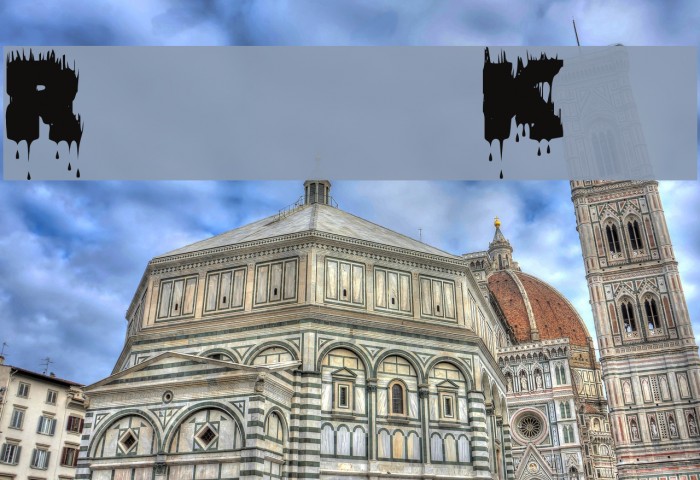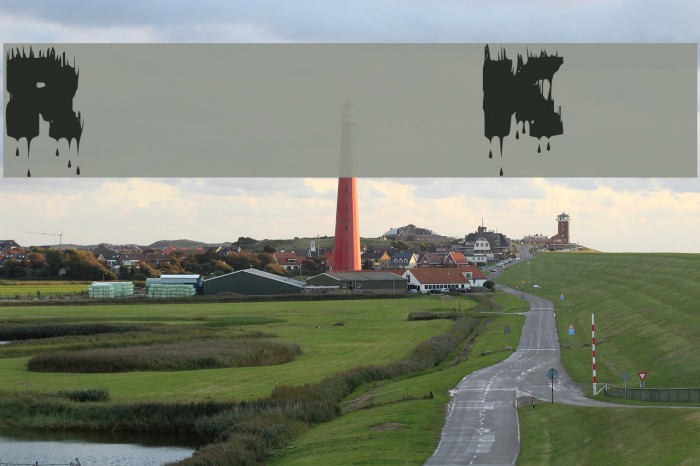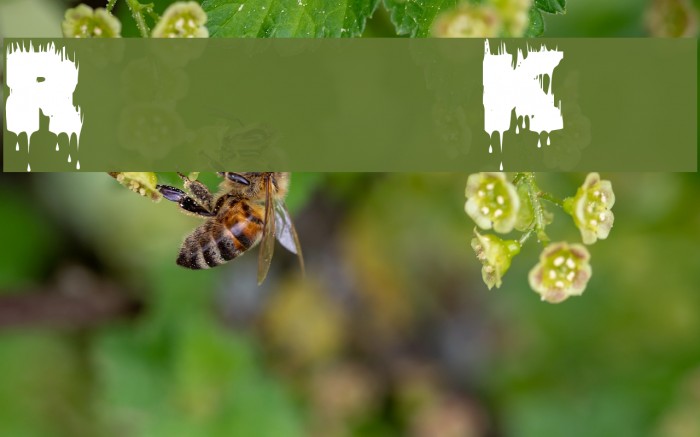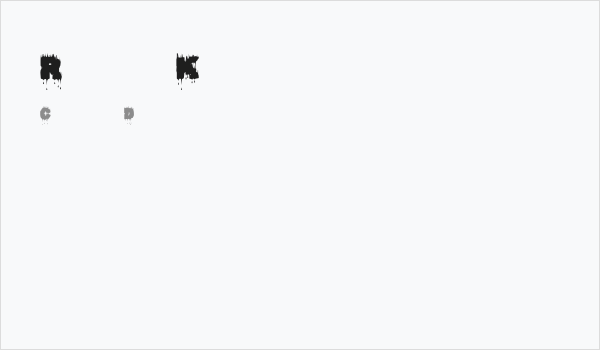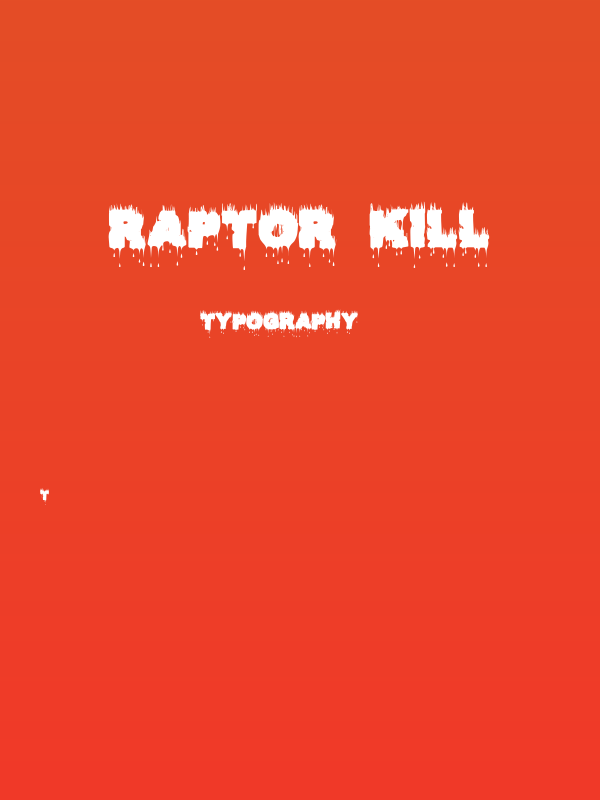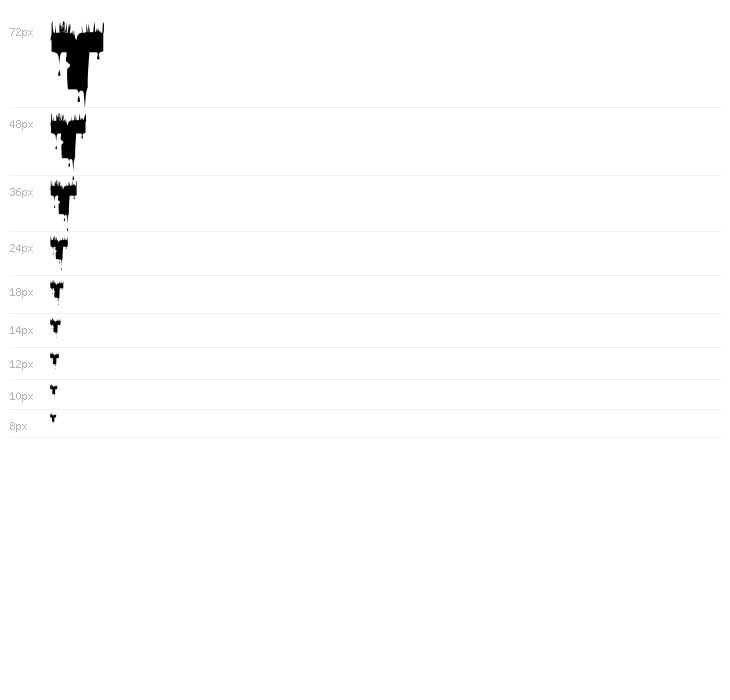
Raptor Kill Font
Raptor Kill Description
This font features a bold, dramatic style with a dripping effect that gives it a horror or Halloween-themed appearance. The uppercase letters are heavily stylized, with each character appearing as if it is melting or dripping with liquid. This creates a visually striking and somewhat chaotic look, making it ideal for designs that require a sense of urgency or fear. The font's unique design elements make it stand out, ensuring that any text using this font will capture attention. The characters are evenly spaced, but the dripping effect adds an irregularity that enhances its eerie aesthetic.
| Proposed Projects | Ideal for Halloween posters, horror movie titles, haunted house flyers, and spooky event invitations. |